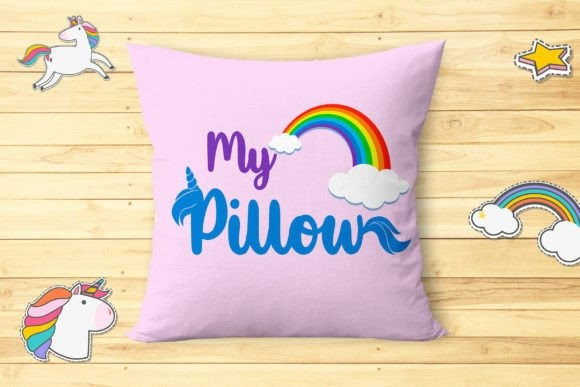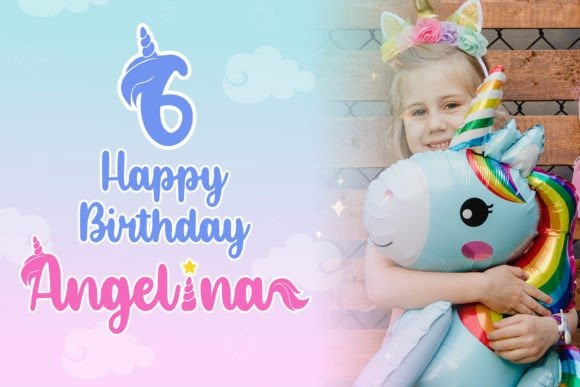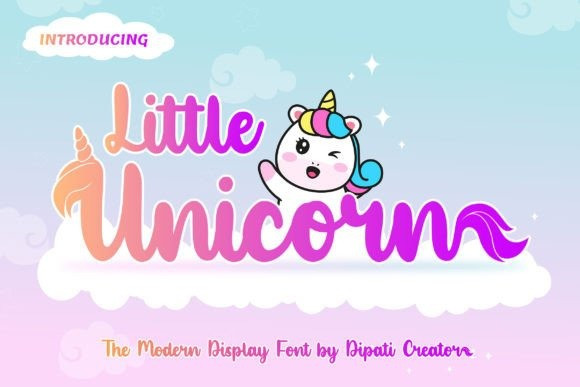
Little Unicorn Font
Little Unicorn Script Font is a fun, jolly and incredibly charming display font. It embodies playfulness and authenticity and is the perfect choice for any project. This font is so cute, with lots of magical alternates. You can also use it as a monogram for a name or more.